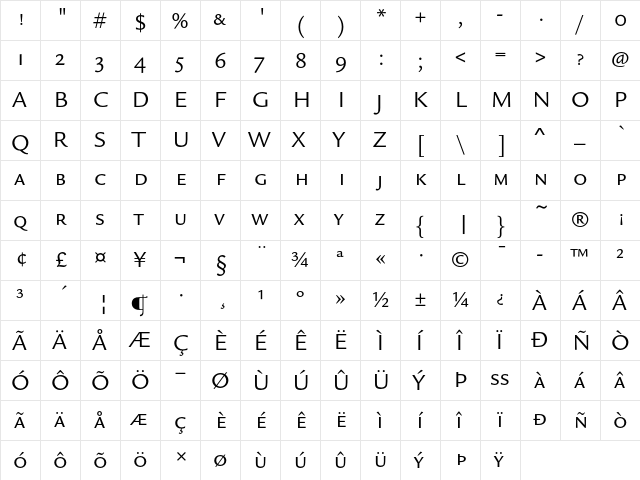
Legacy Sans ITC Book SC
Design Context for Legacy Sans ITC Typeface
Legacy Sans ITC takes a measured approach to typography — its balanced proportions and neutral character make it a reliable workhorse for both digital and print work.